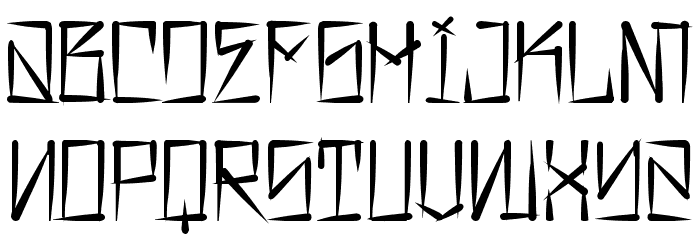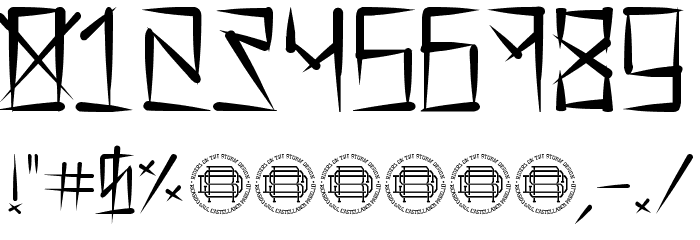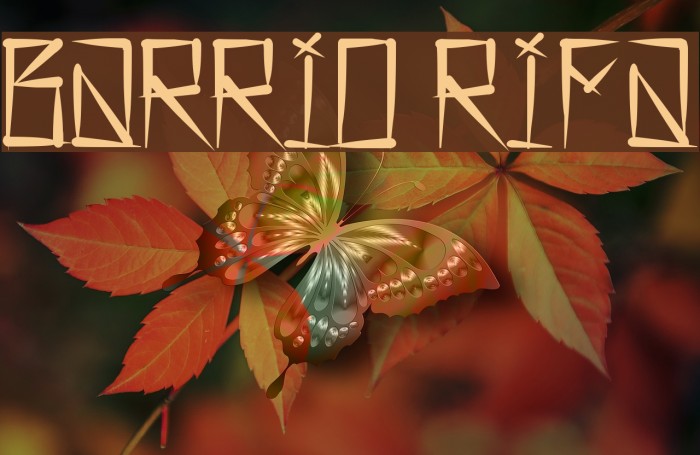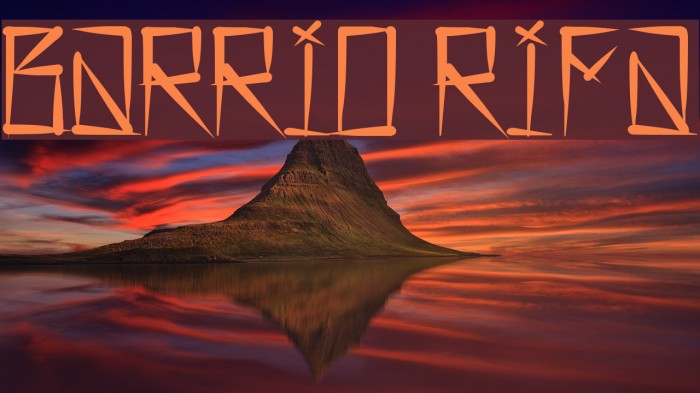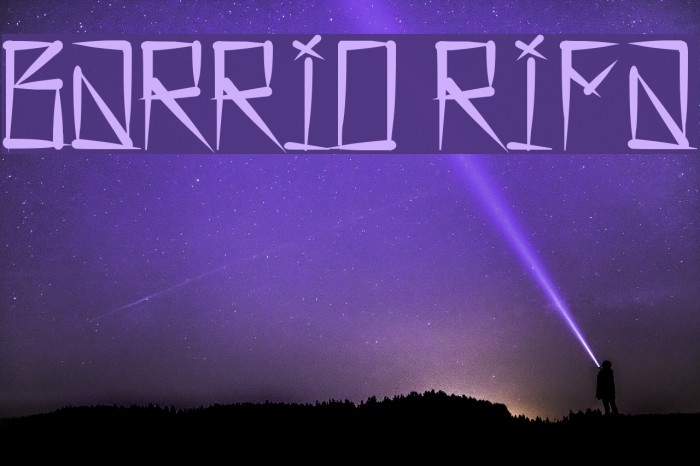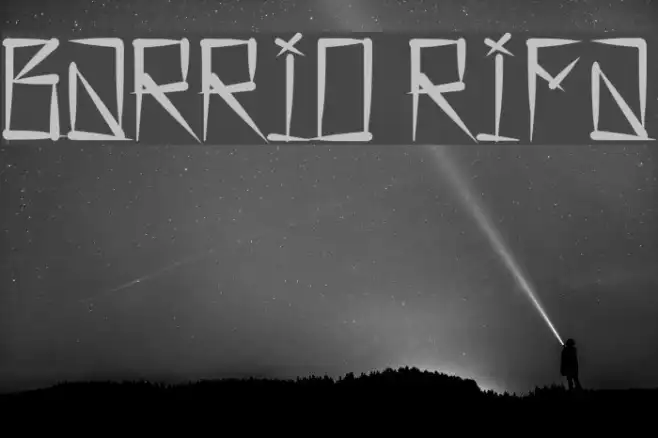
Barrio Rifa Font
This font features a bold and edgy design with sharp, angular lines and a graffiti-like aesthetic. The characters are uniquely stylized, with exaggerated points and a sense of motion, giving it a dynamic and rebellious feel. The uppercase and lowercase letters maintain a consistent style, with a strong emphasis on vertical and diagonal strokes. Numbers and special characters follow the same design principles, ensuring a cohesive look across all elements. This font's distinct appearance makes it stand out, ideal for projects that require a bold statement.
A bold, angular font with a graffiti-inspired, edgy style.
- Font: Barrio Rifa
- Proposed Projects: Perfect for street art designs, urban-themed posters, album covers, and branding that requires a bold, rebellious touch.
- Overall Style: Modern, Urban